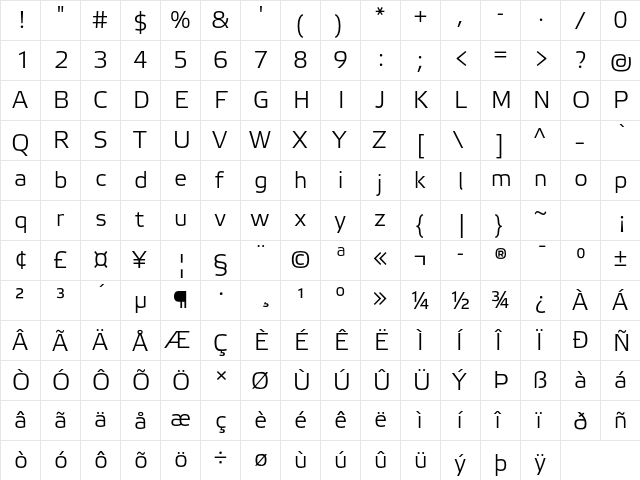
Elektra Light Pro Regular
| Designer | Frantisek Storm |
Design Context for Elektra Light Pro Typeface
Elektra Light Pro is a composed and adaptable typeface that performs quietly and consistently across a wide range of design contexts. The delicate stroke weight brings airiness and refinement to layouts.